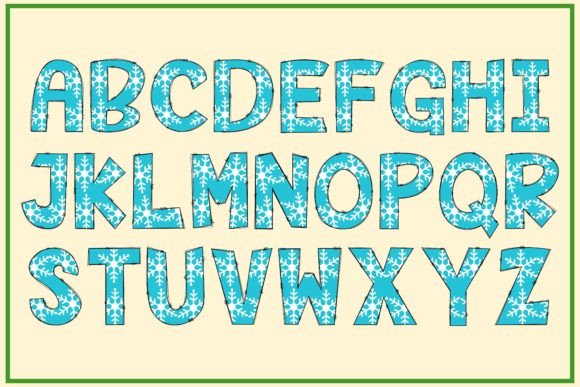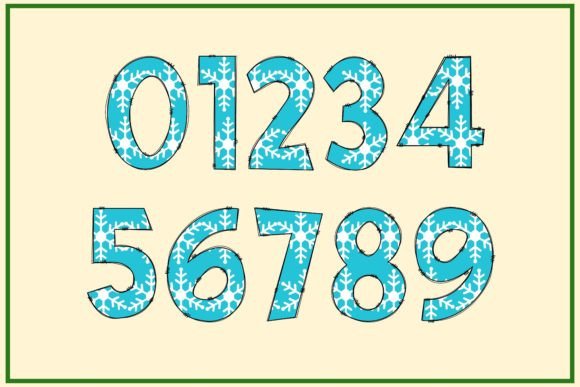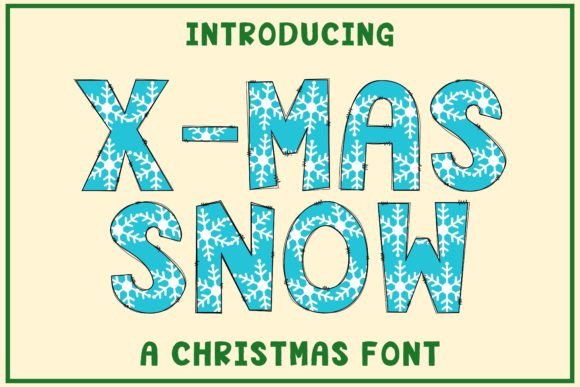
X-mas Snow Font
About X-mas Snow Font
X-mas Snow is a cool and unique color font that adds a touch of magic and winter charm to your designs. With its characters decorated with snowflakes, this font is perfect for various design ideas, especially those related to the Christmas holiday.
Whether you’re creating Christmas-themed invitations, festive greeting cards, winter-themed social media posts, or any other creative project that requires a whimsical touch, X-mas Snow can elevate your designs and make them stand out.
With X-mas Snow, you have the opportunity to explore different creative possibilities. Combine the font with other design elements, experiment with colors, and let your imagination run wild. Whether you’re designing for personal use or professional projects, this font can add a special touch of winter magic.